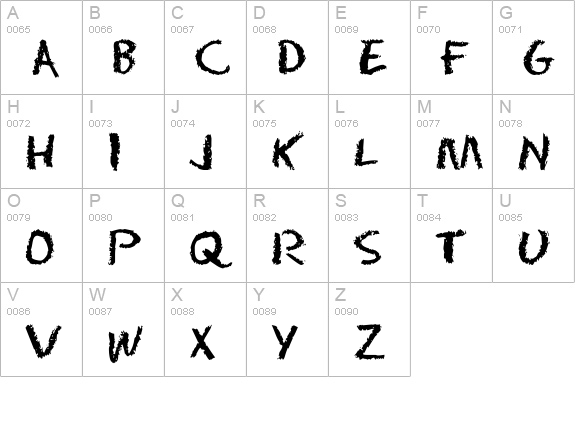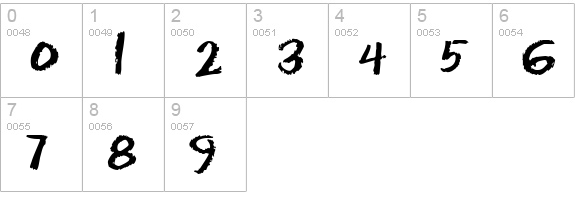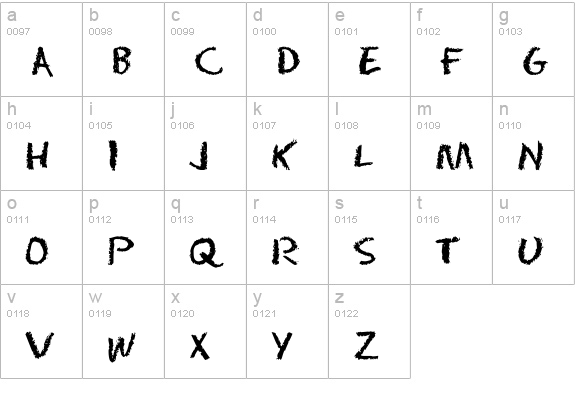
ChalkDust Font Details
ChalkDust font is a whimsical and playful typeface that emulates the look of handwritten chalk on a blackboard. Its uneven lines and rough edges give it a charming and authentic feel, perfect for adding a touch of creativity to your designs. This font is ideal for creating eye-catching posters, invitations, and other projects that need a fun and casual flair. The best part about ChalkDust font is that it is completely free to download at FontsMarket.com. You can easily add this unique font to your collection without any cost, making it a valuable resource for any designer or creative individual. Don't miss out on the opportunity to enhance your projects with the free ChalkDust font today!